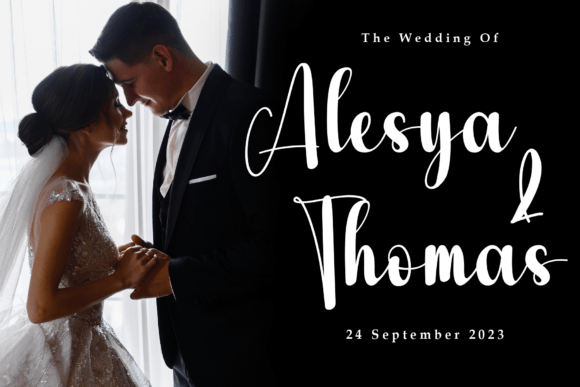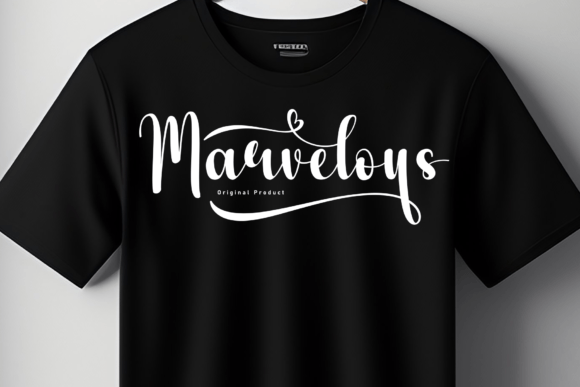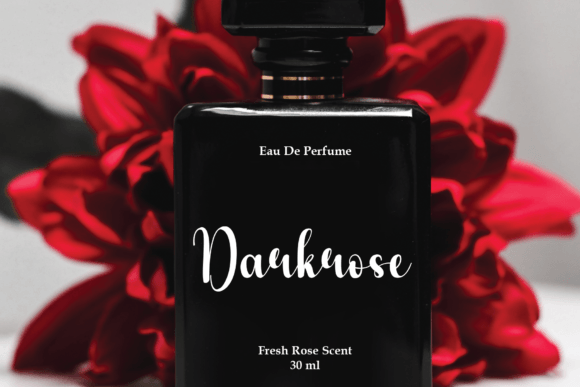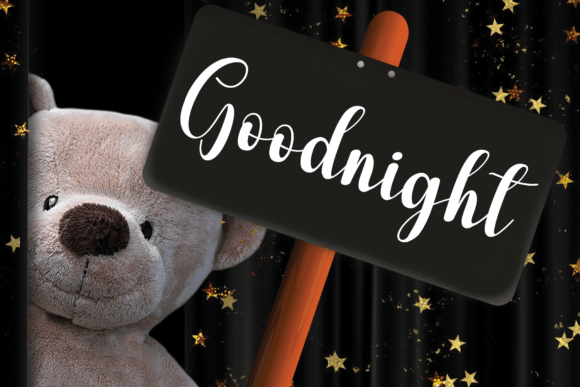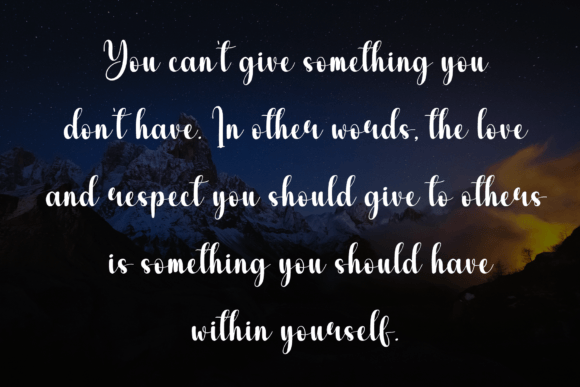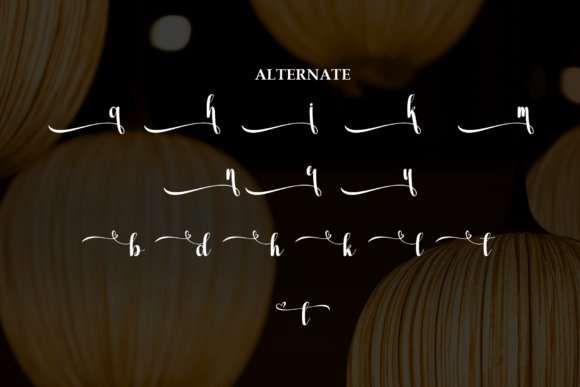
Introduction to Lantern Font
That’s where the Lantern Font comes in – a sweet and friendly handwritten font that adds a fun touch to any design. Whether you’re crafting wedding invitations, designing cards, or working on a personal project, this high-quality font is sure to delight. With its transparent background and free download option, it’s a valuable resource for designers of all levels. In this article, we’ll dive into the world of Lantern Font and explore what makes it a must-have for your next creative project.
Key Features of Lantern Font
- High-quality design resource suitable for creative projects requiring elegant and sophisticated typography.
- Features a transparent background, allowing for seamless integration with any design or creative project.
- Includes a range of characters, including uppercase and lowercase letters, numbers, and punctuation marks, making it a versatile font for various applications.
- Designed with a clean and modern aesthetic, the Lantern Font is perfect for use in logos, headings, and body text for a range of creative projects.
Honest Review: Lantern Font
I recently stumbled upon the Lantern Font while searching for a high-quality design resource for a creative project. I was thrilled to discover that it’s available for a free download, which is always a bonus. The font itself is quite impressive, with a wide range of characters and a transparent background that makes it easy to work with.
What works well for the Lantern Font is its versatility. It can be used for both modern and traditional designs, making it a great choice for a variety of creative projects. The font’s clean and elegant design also makes it perfect for use in logos, headers, and other text-based elements. ✨
Some limitations I’ve noticed with the Lantern Font include the lack of bold and italic versions, which can make it difficult to use in certain situations. Additionally, the font may not be suitable for use in very small sizes, as the characters can become difficult to read. ⚠️
Overall, I’m impressed with the Lantern Font and would definitely recommend it to designers looking for a high-quality, free design resource. While it may have some limitations, its versatility and clean design make it a valuable addition to any design toolkit.
Lantern Font
The Lantern Font is a high-quality design resource that can be used in various creative projects. It is available for free download, making it an ideal choice for designers and non-designers alike. The font features a transparent background, allowing for easy customization and versatility.